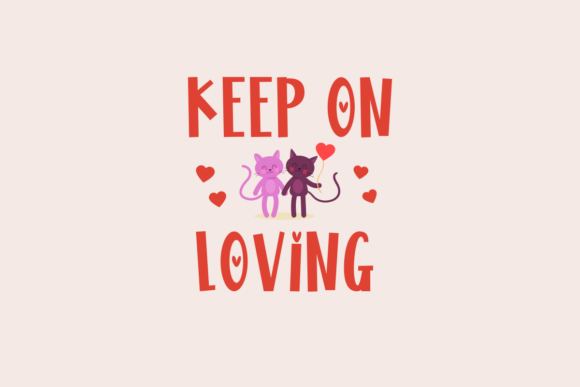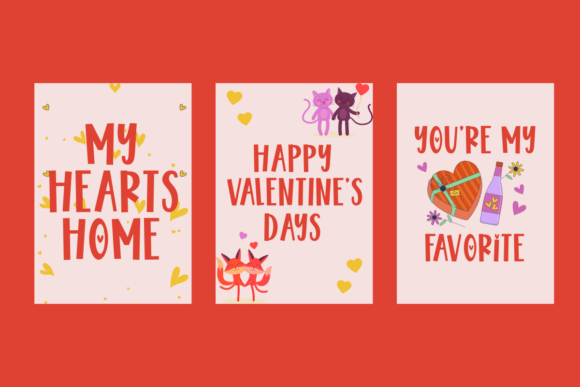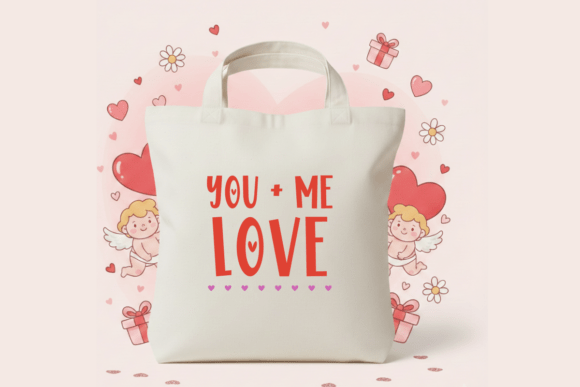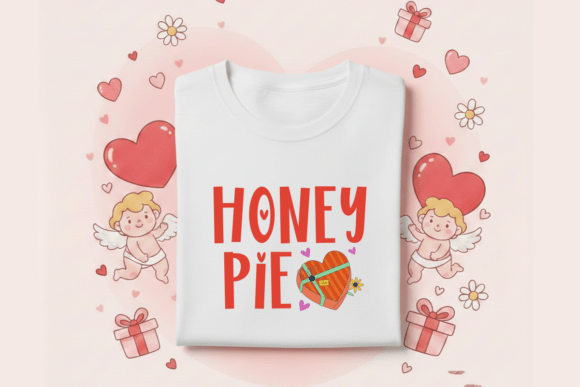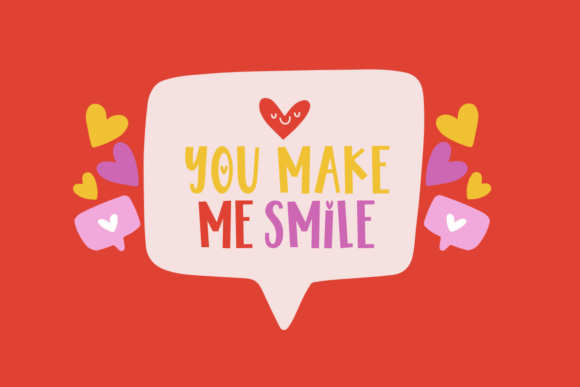
Introduction to I Love Cupid Font
Introducing ‘I Love Cupid’, a joyfully crafted display font that showcases the charm of life’s cherished moments.
Embedded with whimsical heart details on each character, this font weaves emotion into every line Its versatile persona shines through in an array of creative endeavors; from Valentine’s day cards and wedding invites to timeless quotes and children’s birthday mementos.
Key Features of I Love Cupid Font
Why Choose I Love Cupid Font?
I Love Cupid Font offers exceptional quality and versatility, making it a valuable addition to your design toolkit. Whether you’re creating for personal projects or commercial use, I Love Cupid Font delivers professional results.